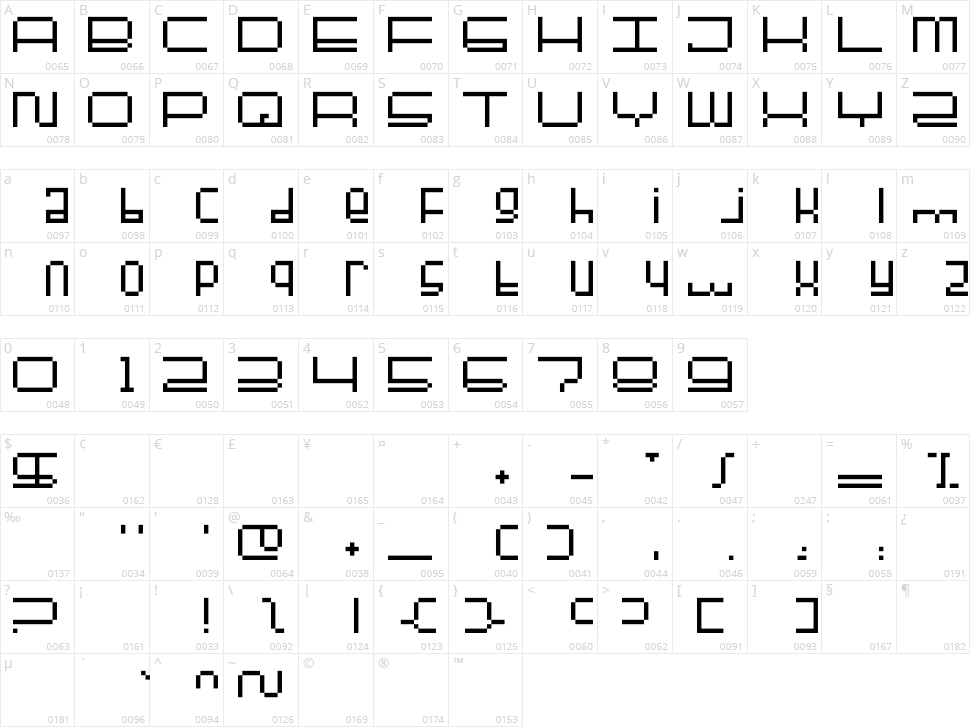
Fuller BTMP
Fuller BTMP, February 2007
Fuller BTMP's characters have a tendency to expand to fit the space available. Luckily I thought better of my initial urge to name it "Crap Expands BTMP."